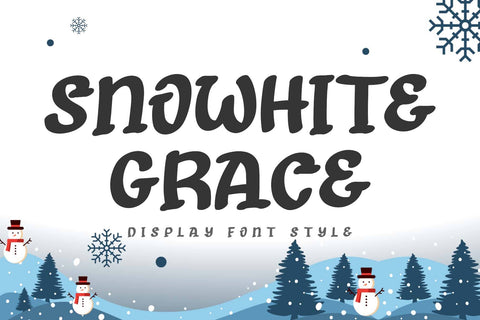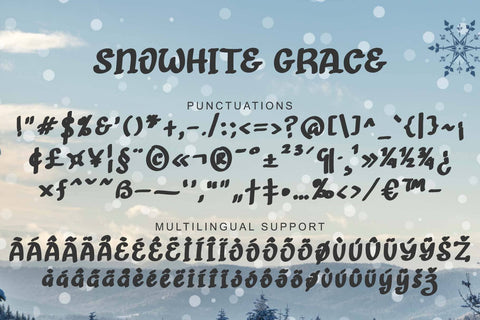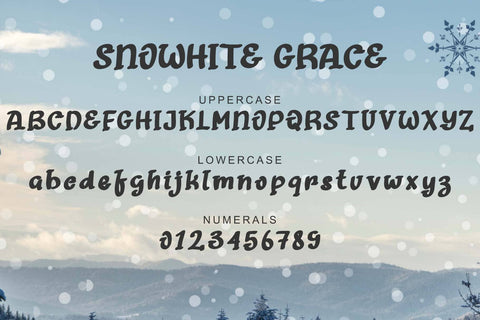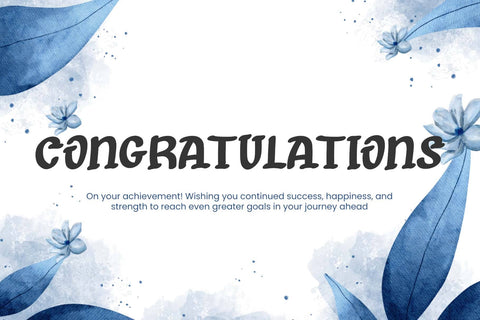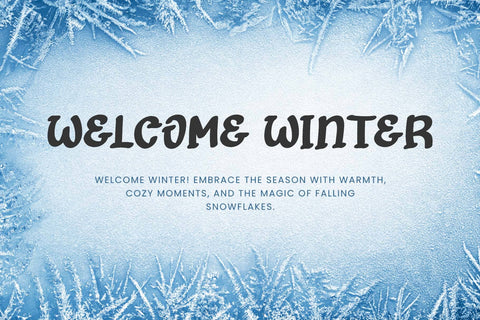
Snowhite Grace
"Snowhite Grace" is a unique and playful display font. It features uppercase and lowercase letters, numerals, punctuation, and multilingual support. It's perfect for Christmas, banners, posters, print, branding, stickers, logos, Valentine's Day, holidays, winter, vacation, summer, Easter, weddings, Thanksgiving, spring, comics, cartoons, and more.